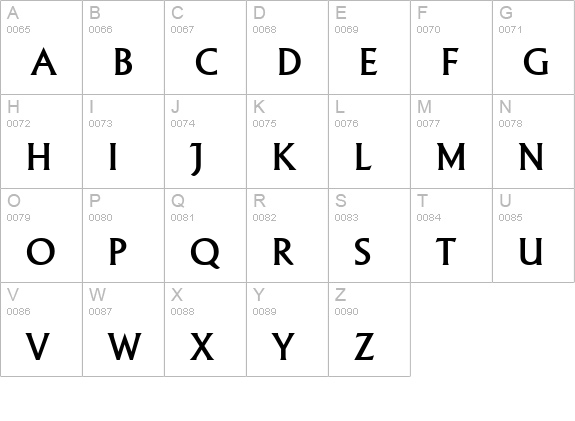
LapidarSerNo2URWTMed Font Details
LapidarSerNo2URWTMed is a stunning font that exudes elegance and sophistication. With its beautifully crafted letterforms and exquisite details, this font is perfect for adding a touch of refinement to any design project. The LapidarSerNo2URWTMed font features a unique blend of sharp edges and smooth curves, creating a harmonious balance that is visually appealing. Its medium weight adds a sense of stability and versatility to the text, making it suitable for a wide range of applications. Whether you are designing a logo, creating a brochure, or working on a website, LapidarSerNo2URWTMed will effortlessly elevate your design. Its timeless appeal and inherent charm will captivate your audience and leave a lasting impression. The best part is, this font is freely available to download at FontsMarket.com. You can easily access this exceptional font and start incorporating it into your designs without any hassle. With just a few clicks, you can add a touch of class to your projects and take them to the next level. So why wait? Discover the power of LapidarSerNo2URWTMed and experience the beauty of this font for yourself. Download it for free at FontsMarket.com and unleash your creativity with this remarkable typeface.